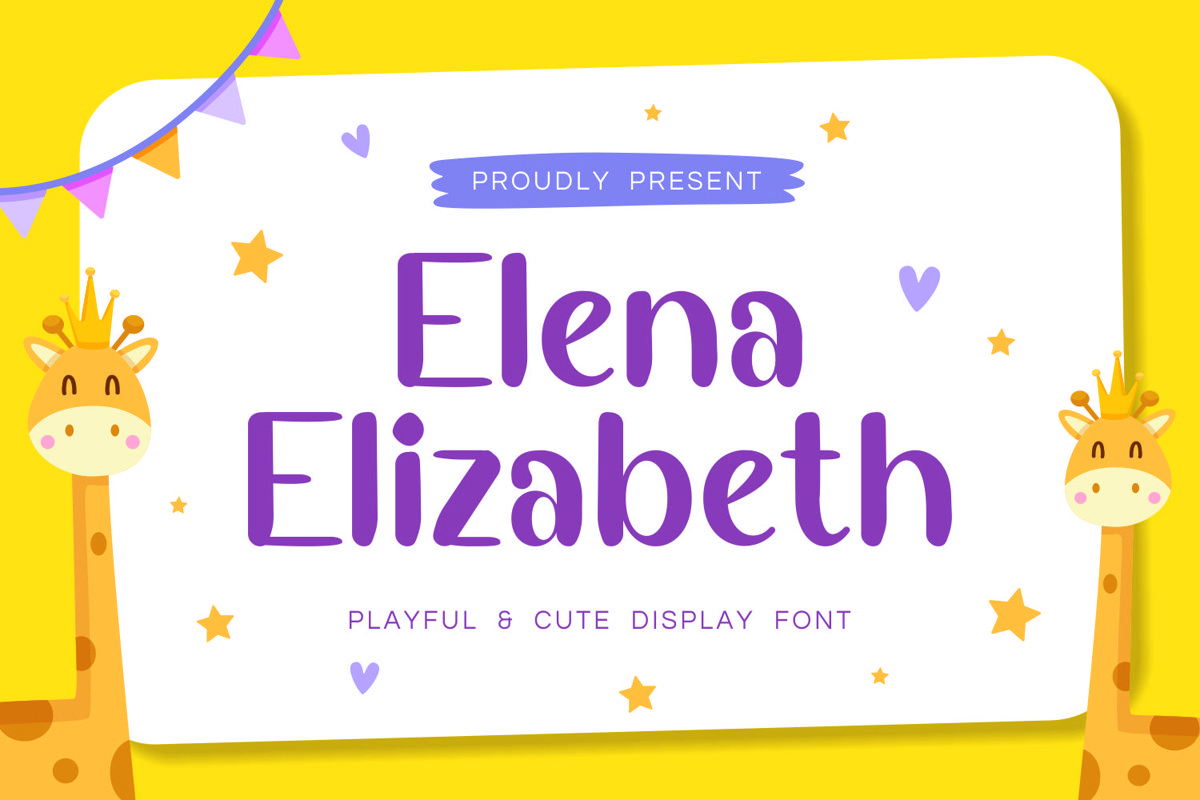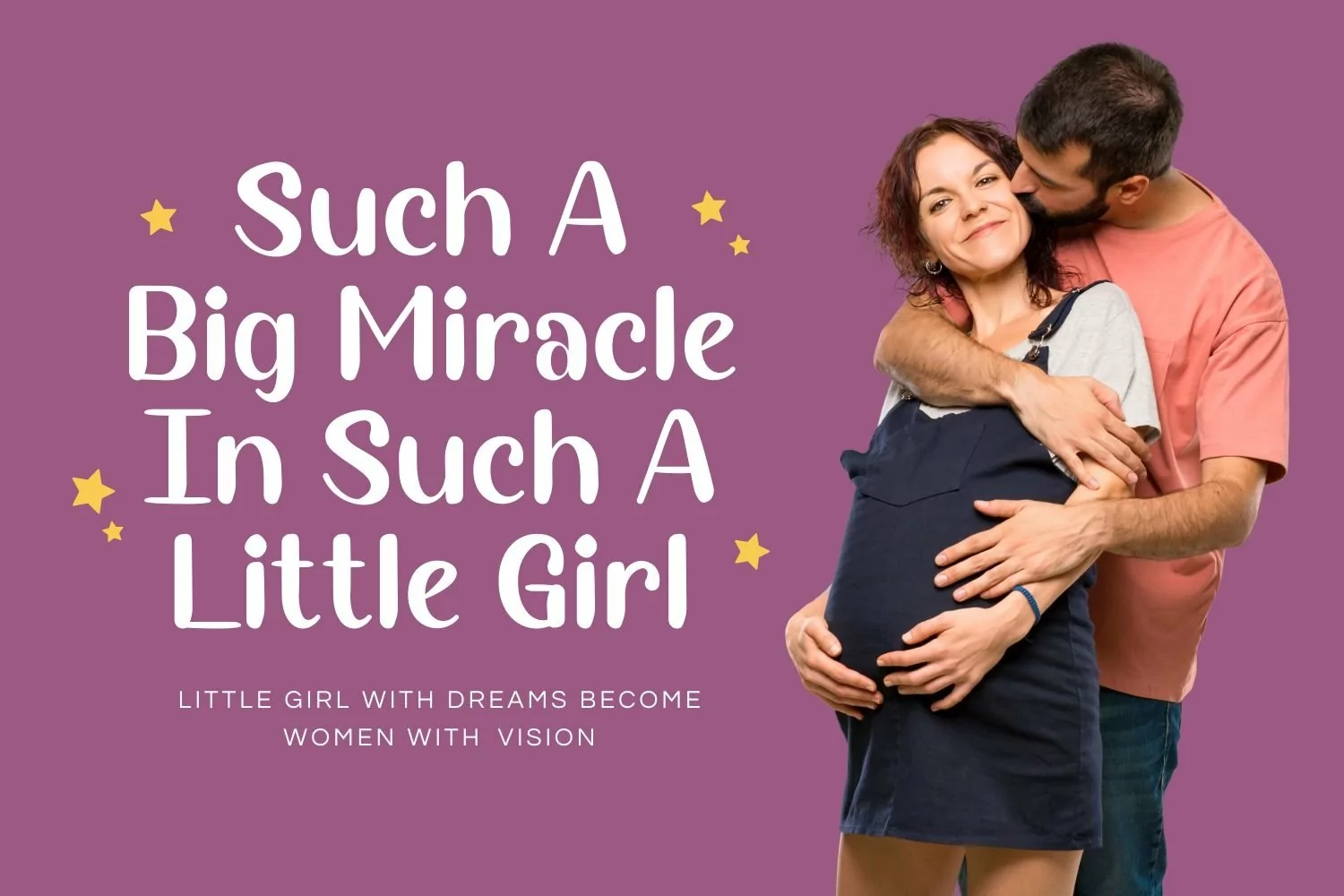
ElenaElizabeth is sans serif display come with playful themes. We wanted to create the most simple and clean. It matches applies in some designs such as the logotype, brand, packaging, quotes, pet poster, kids shirt, cover book, birthday invitation and more custom design. The features uppercase, lowercase, numeral, punctuation & symbol, multilingual support.